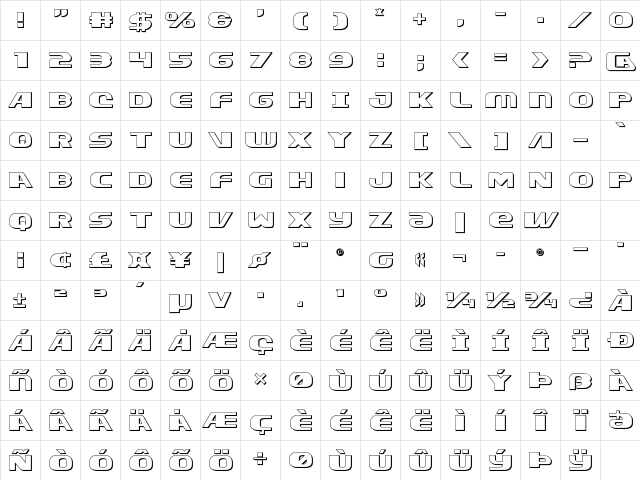
Xcelsion 3D Regular Free Font
Xcelsion 3D Regular
Xcelsion 3D Family
Design Context for Xcelsion 3D
Xcelsion 3D is a composed and adaptable typeface that performs quietly and consistently across a wide range of design contexts.